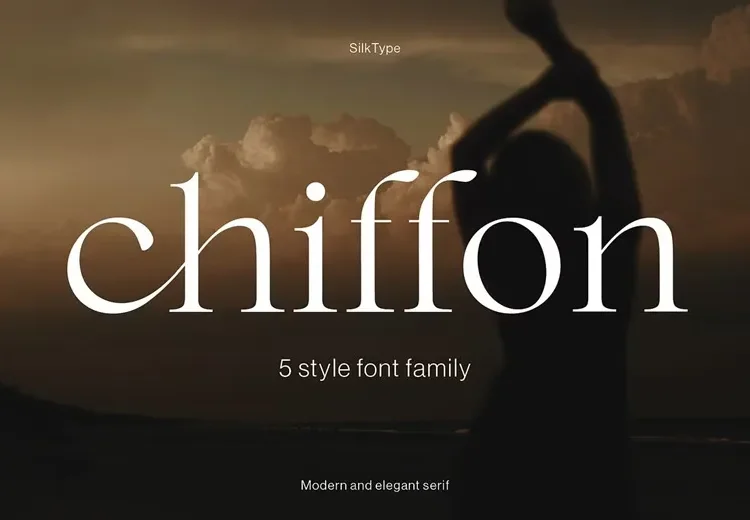
Chiffon Font Family
Chiffon is a sophisticated modern serif font family characterized by its high contrast and graceful curves that add elegance to any design. This typeface stands out with its three alternate forms for the letters ‘c’ and ‘e,’ strategically designed to harmonize with adjacent glyphs. OpenType features and stylistic sets allow users to customize these alternates, offering creative flexibility for diverse applications.
Available in five distinct styles—Extra Light, Light, Regular, Medium, and Semi Bold—Chiffon is as versatile as it is beautiful. It also supports Western, Central, and South Eastern European languages, making it an excellent choice for multilingual projects. Whether you’re designing logos, branding materials, or editorial layouts, Chiffon brings timeless elegance to your work.